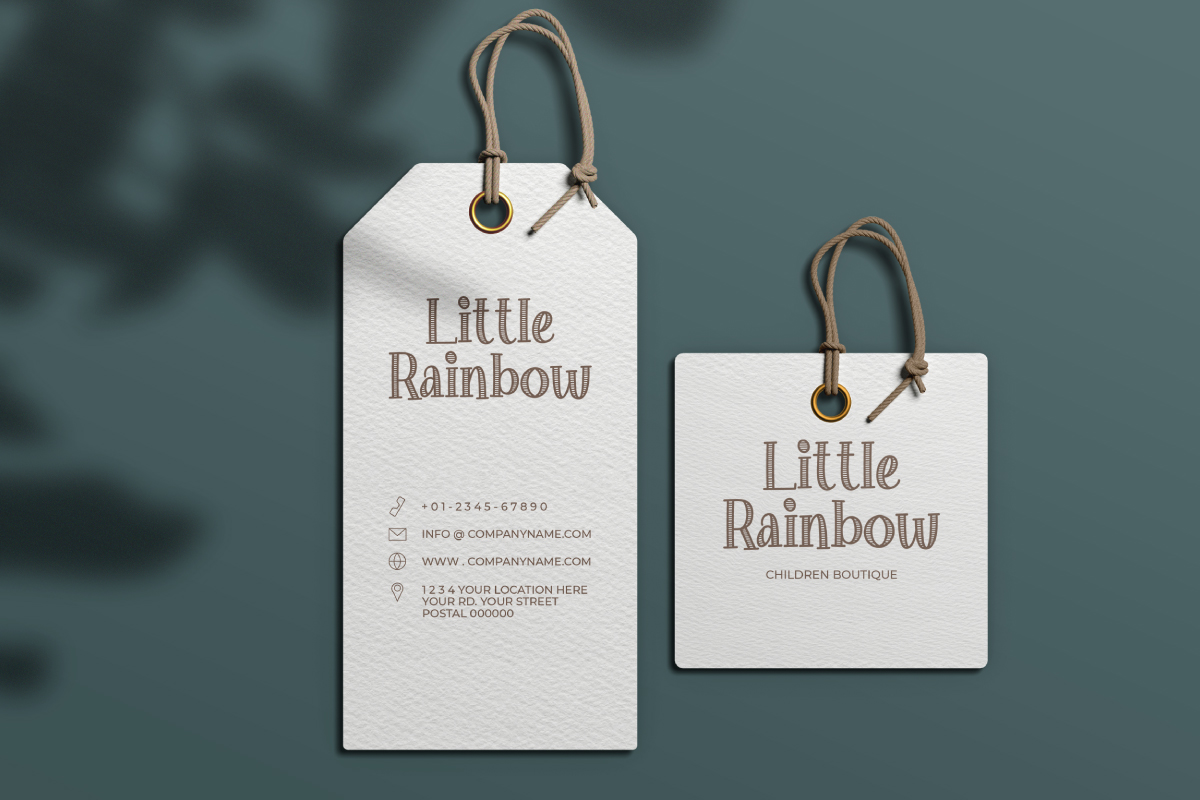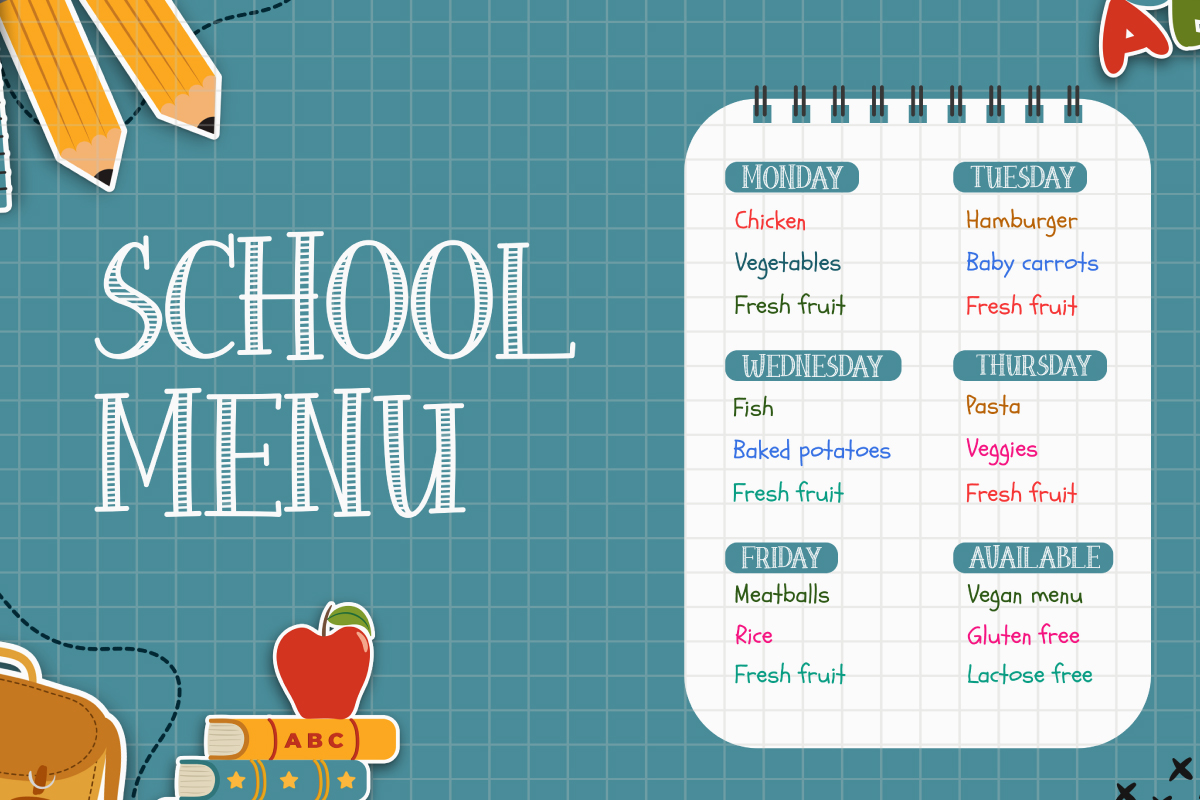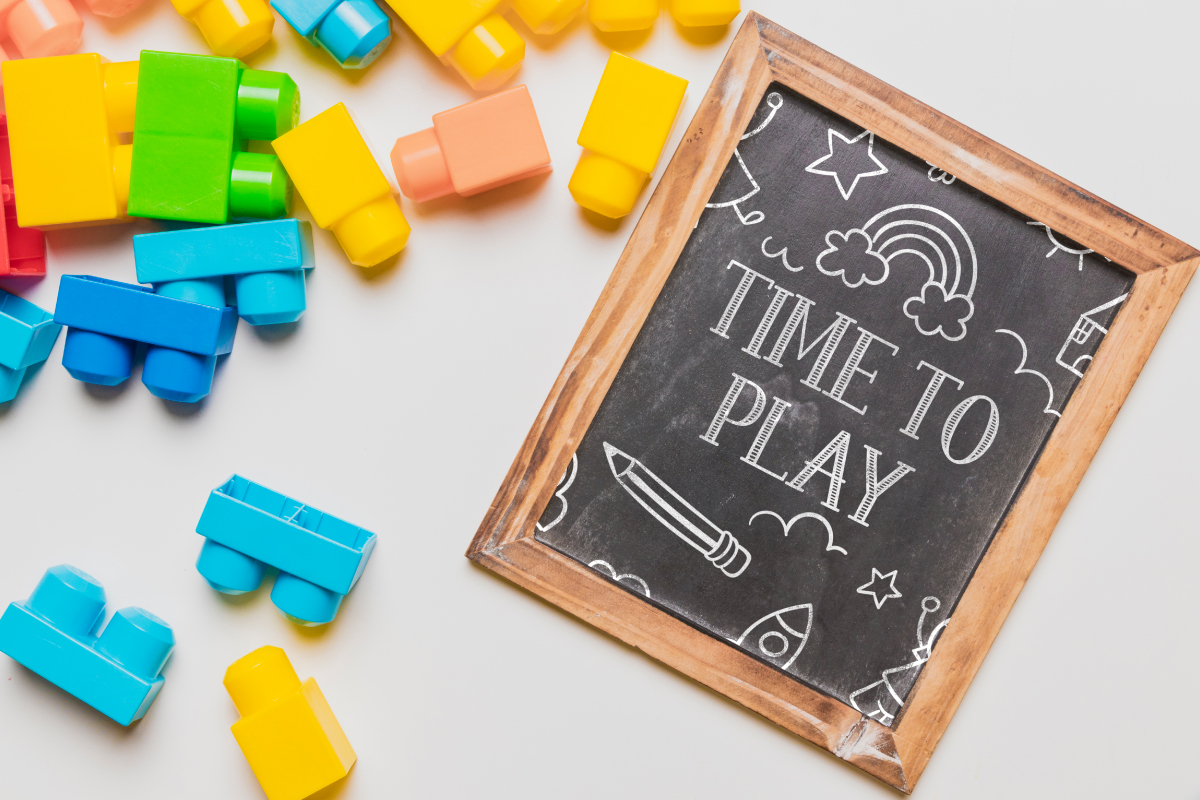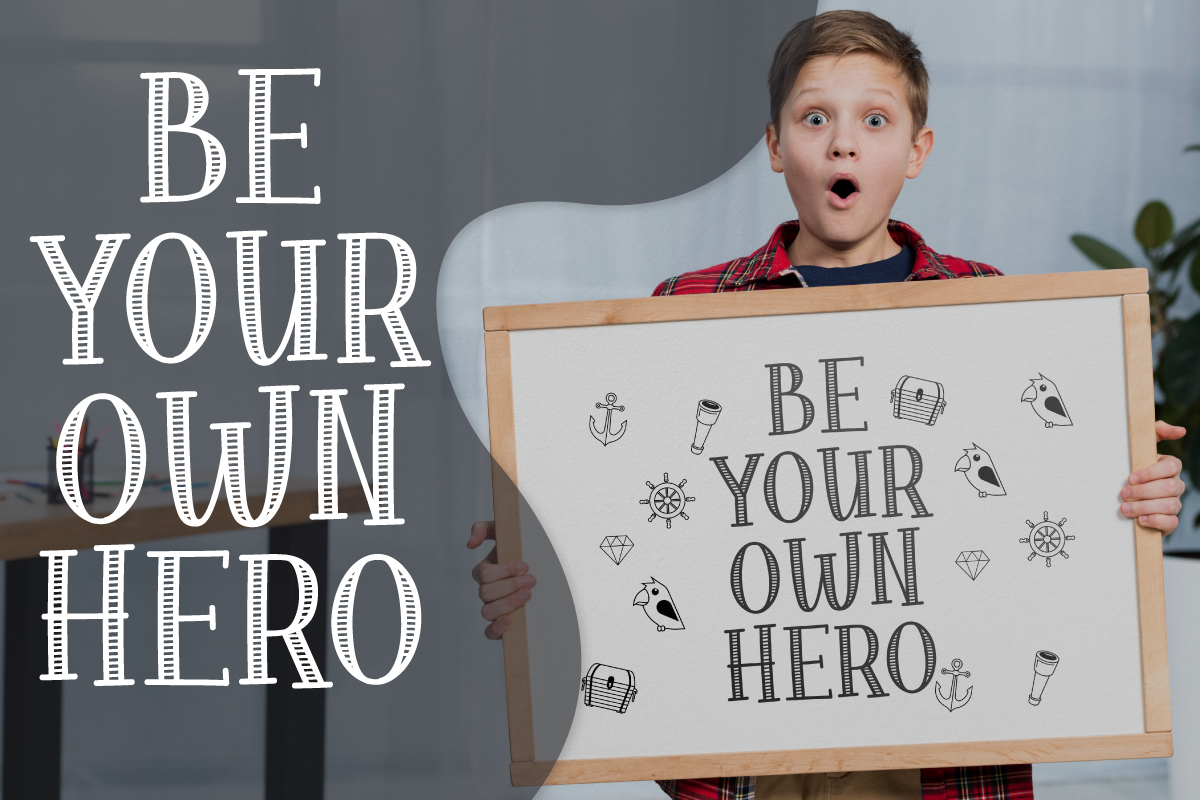
Finding a Line Font
Finding a Line Display Font
This is a fun doodle comic inspired display font. Whether you use it for cartoon related designs, children games or just any creation that requires a lovely touch, this font will be an amazing choice. will be awesome for business card, envelope, poster, product packaging. This font is crafted carefully in every its single letter so it is meant to emulate natural brush lettering with perfect for head-turning statements and eye-catching look!
Finding a Line Font includes full set of Uppercase and Lowercase Basic Characters, Numerals and Punctuation. This font also it contains alternatives to make it flawless set font characters to perfectly make awesome look that add more aesthetic to perfect your extraordinary project is a cute and simple lettered display font that can be used for all chalkboard quotes or teaching material! Its authentic look will add a personal and realistic feel to your designs.